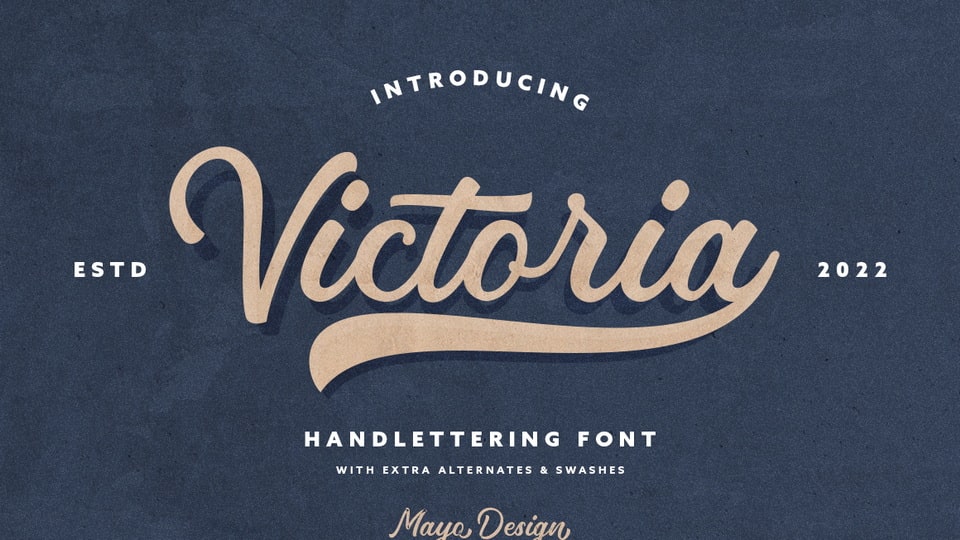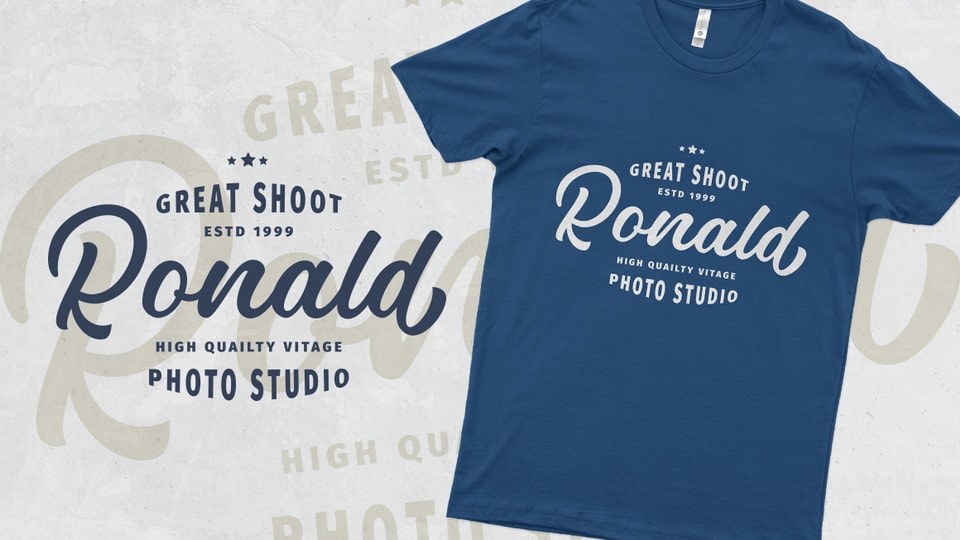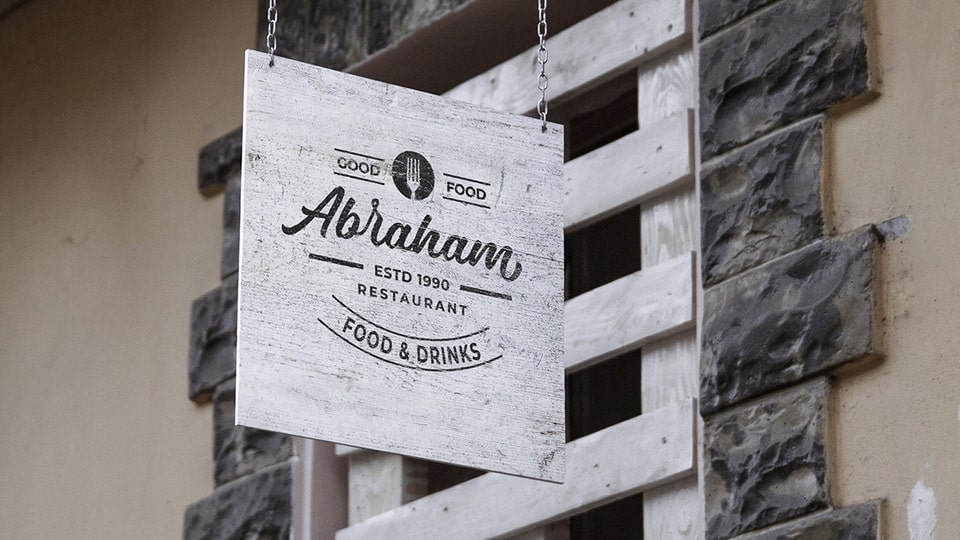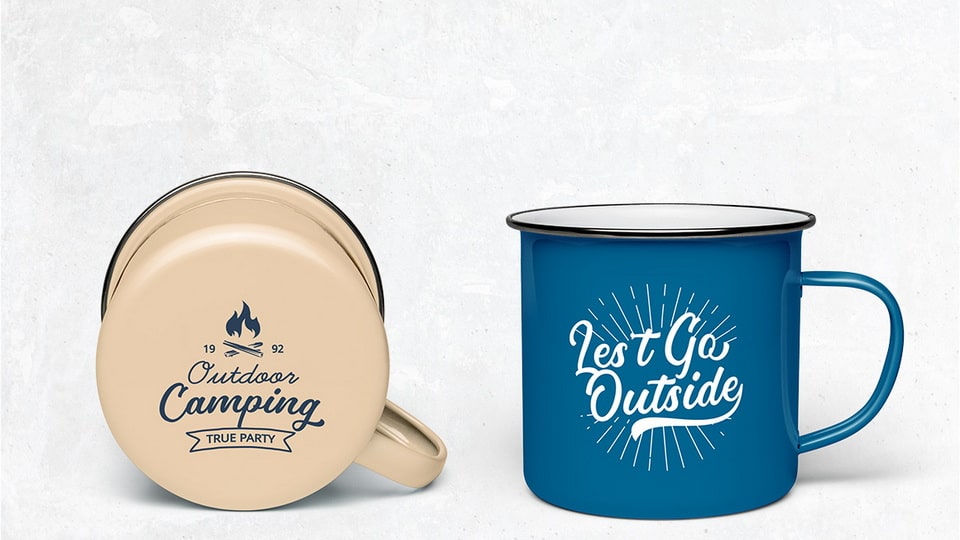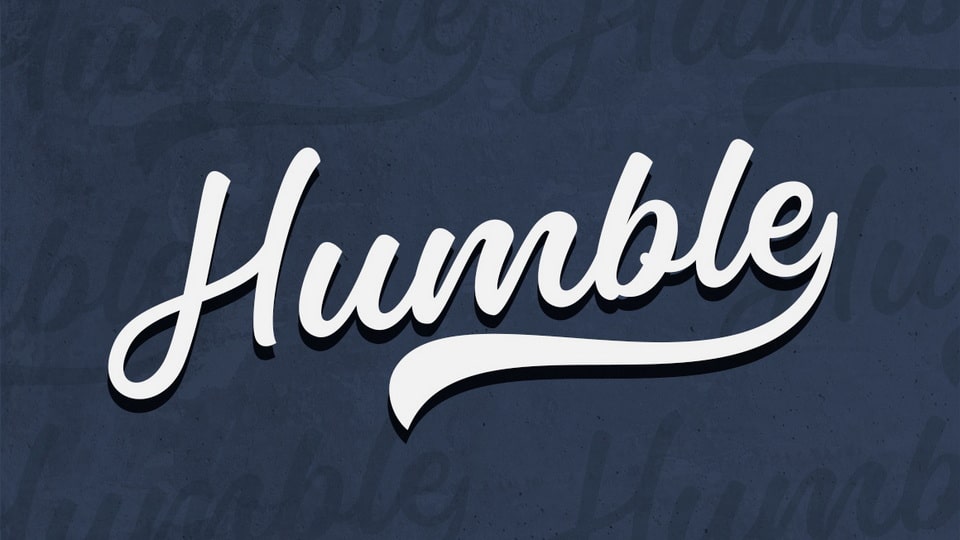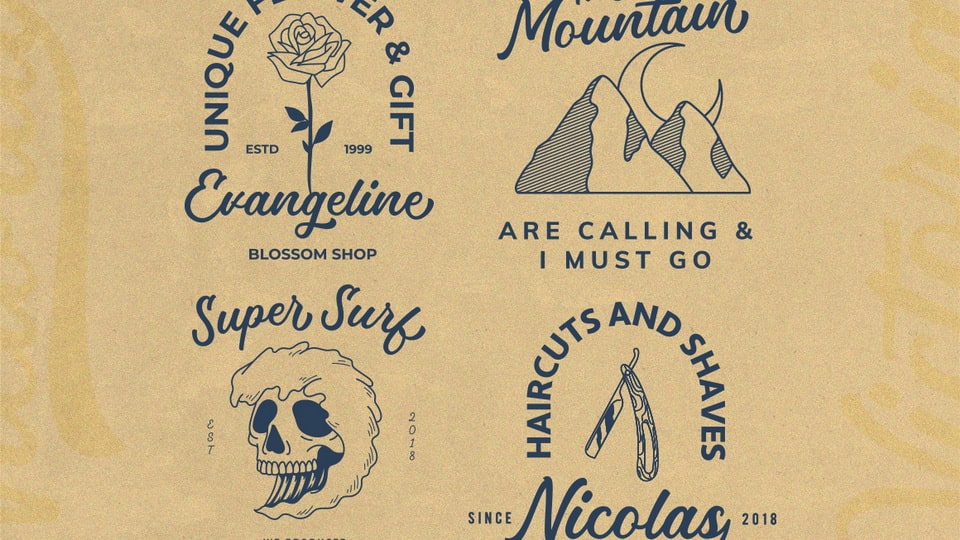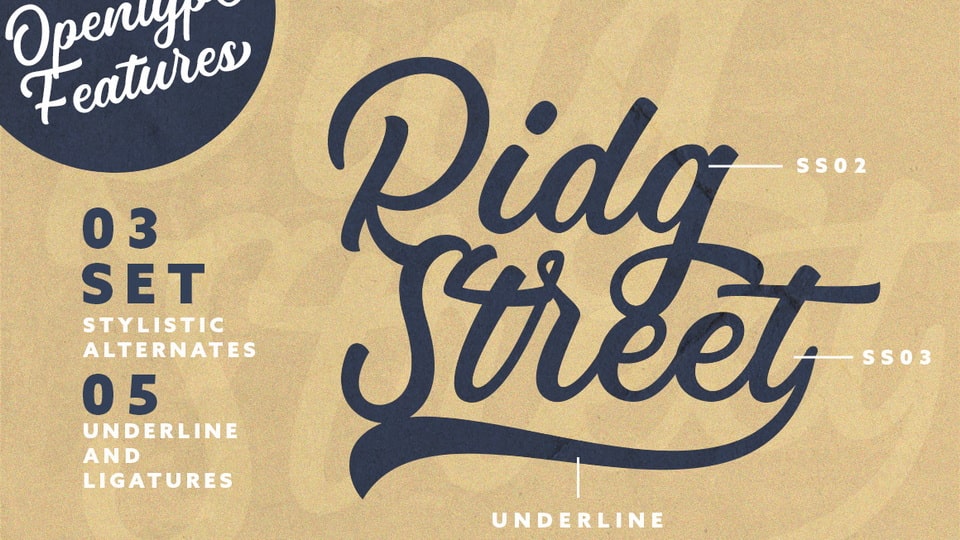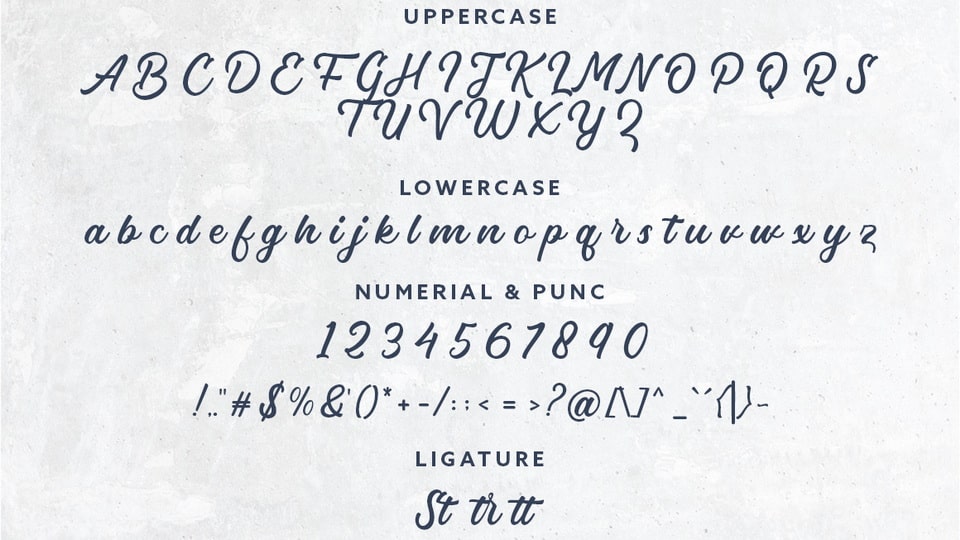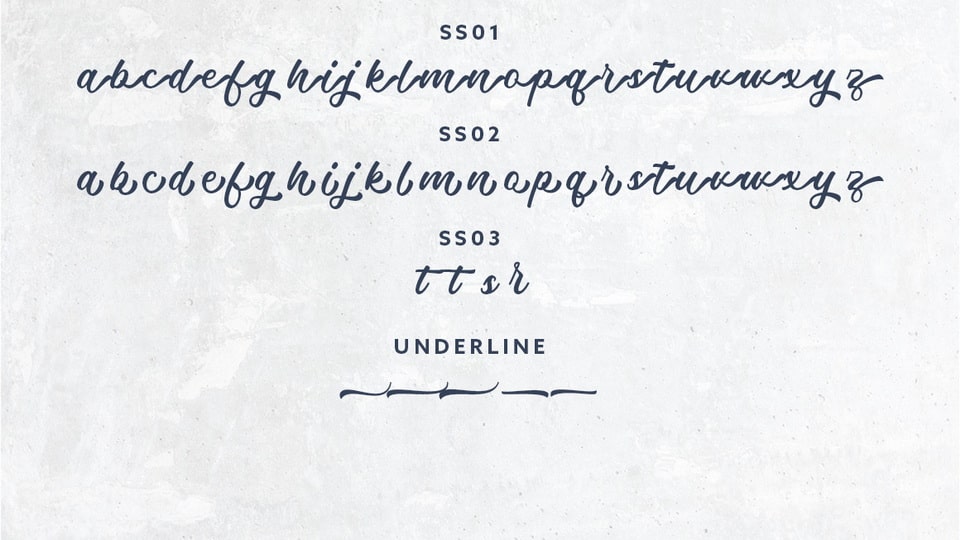
Victoria is a vintage script font with OpenType features. You can use this font in a wide range of works such as logos, branding, covers, posters, quotes, product packaging, merchandise, social media and much more!